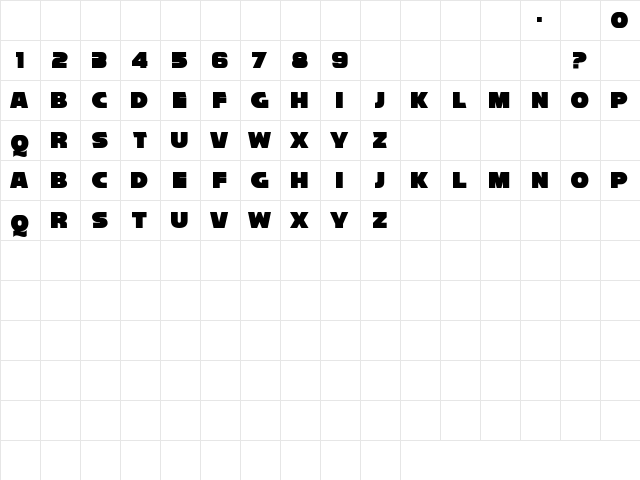
Reisenberg 2.0 Regular
| Designer | Sharkshock |
Design Context for Reisenberg 2.0 Typeface
Reisenberg 2.0 offers clean, dependable letterforms without strong stylistic allegiance, making it a practical choice for designers who need flexibility.